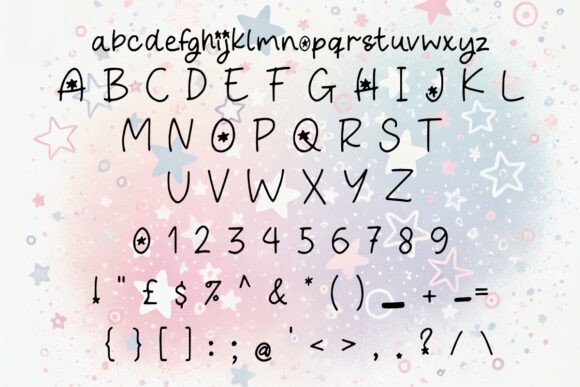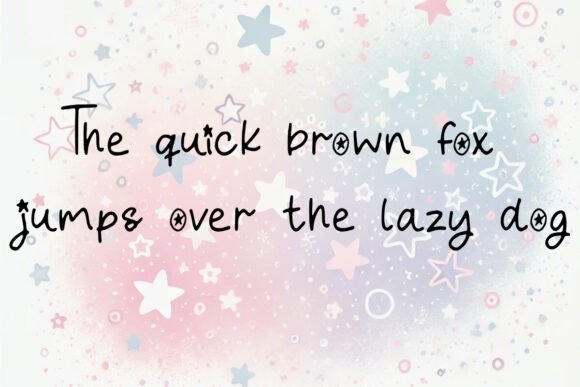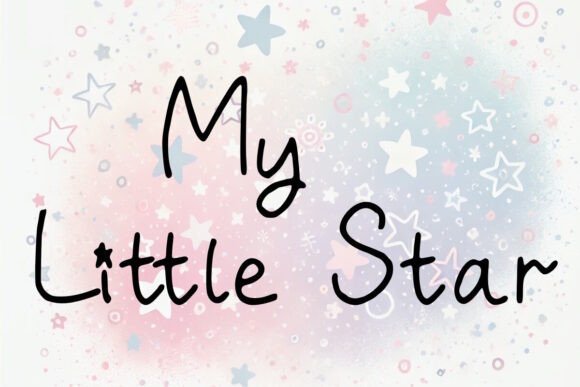
Introduction to My Little Star Font
Add a touch of magic to your designs with My Little Star, a playful handwritten font featuring charming star accents.
Perfect for bringing creativity and imagination to your projects, this font is ideal for designs that need a fun and lighthearted feel .
Key Features of My Little Star Font
Why Choose My Little Star Font?
My Little Star Font offers exceptional quality and versatility, making it a valuable addition to your design toolkit. Whether you’re creating for personal projects or commercial use, My Little Star Font delivers professional results.